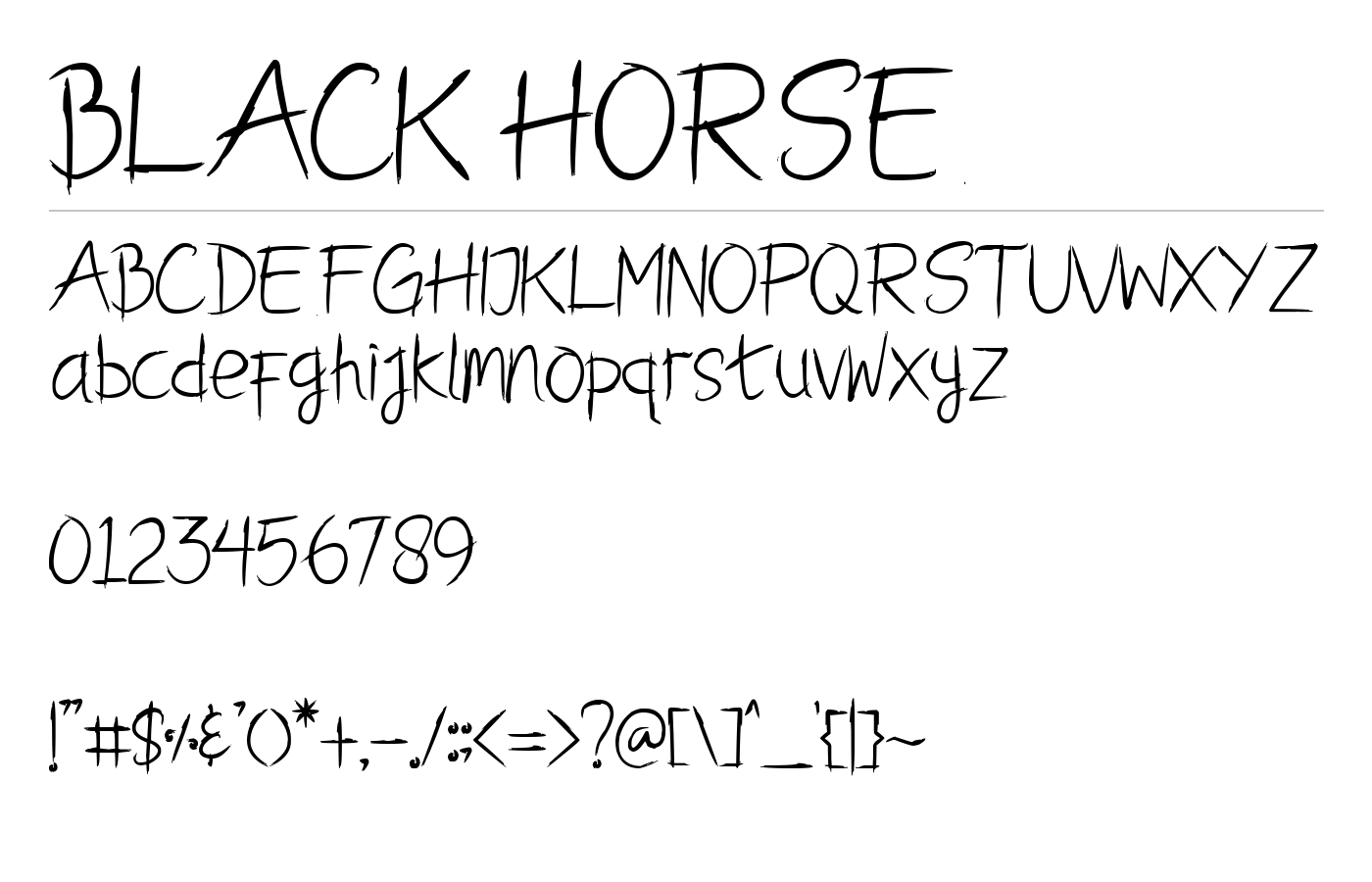
BLACK HORSE is a quirky, hand-drawn sans serif font with a playful and slightly rustic vibe. Its uneven strokes and irregular letterforms give it a personal, casual feel, making it ideal for creative projects, informal branding, and artistic designs that need a unique, approachable character. This font works well in headlines, logos, and packaging where a distinctive, original look is important.
BLACK HORSE Font
About BLACK HORSE Font
| Font family | BLACK HORSE Font |
| Designer | Fachranheit 2019 |